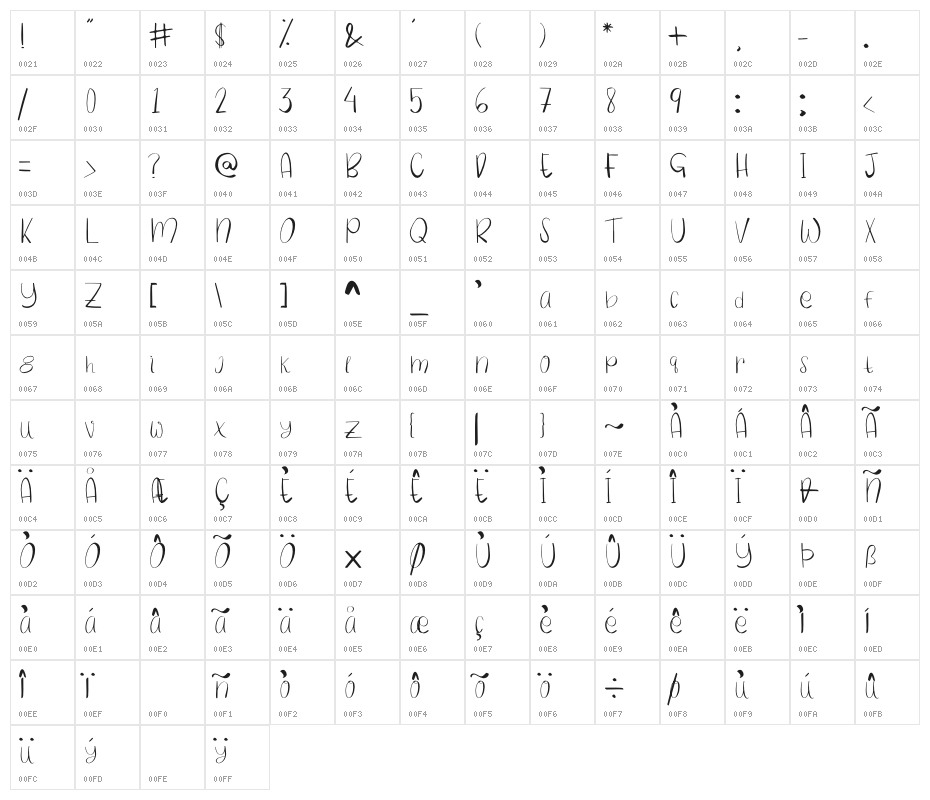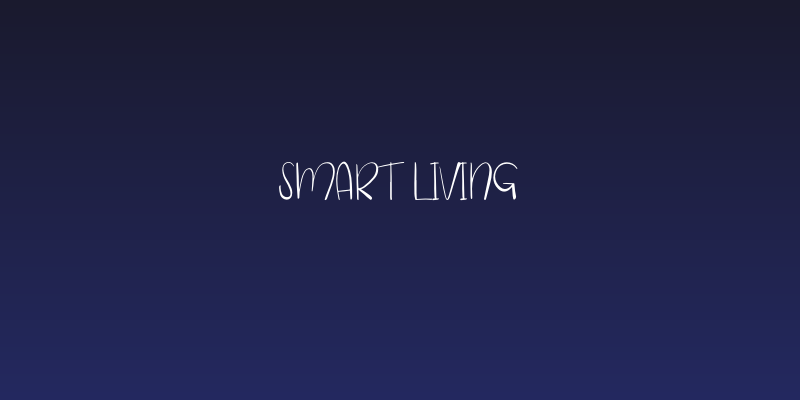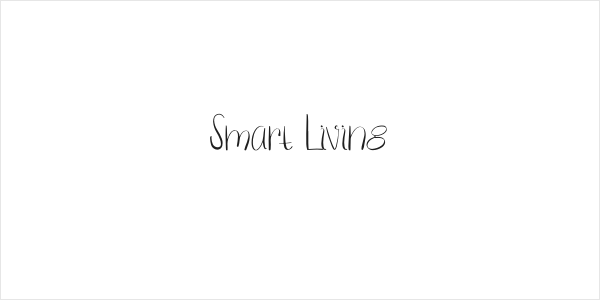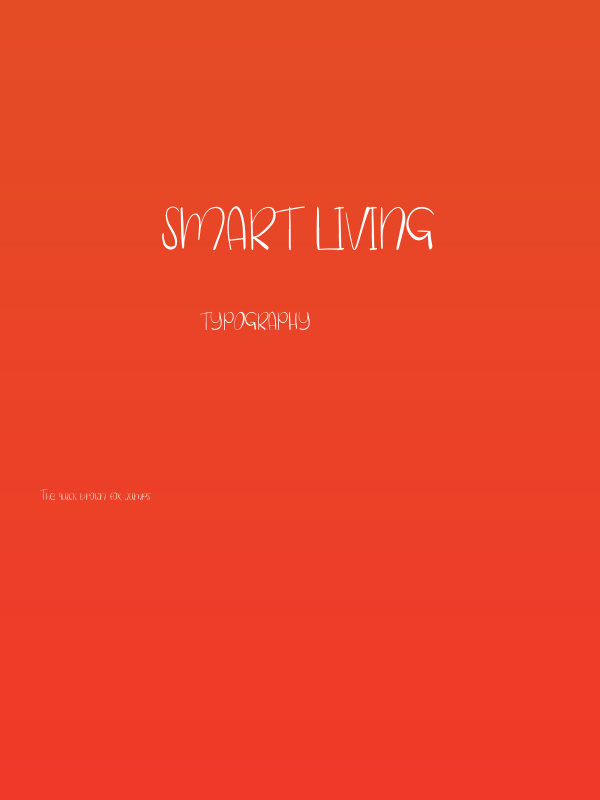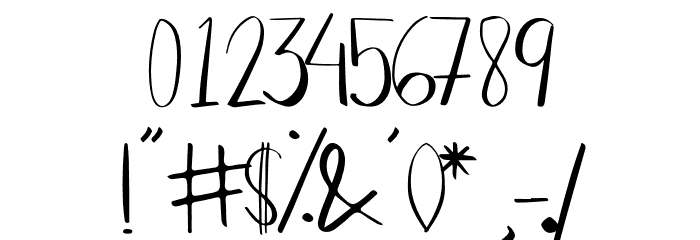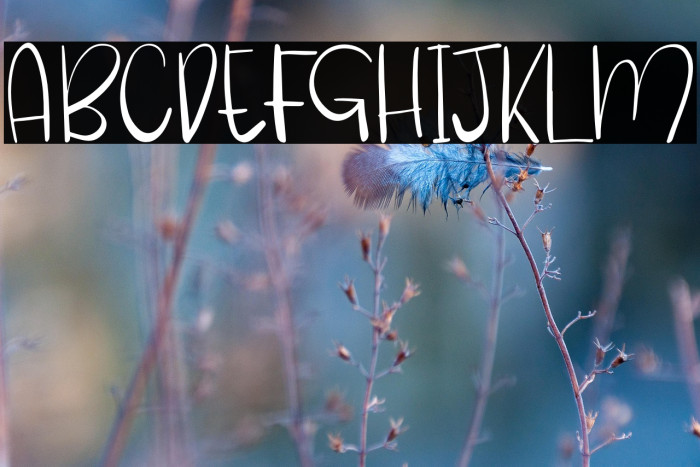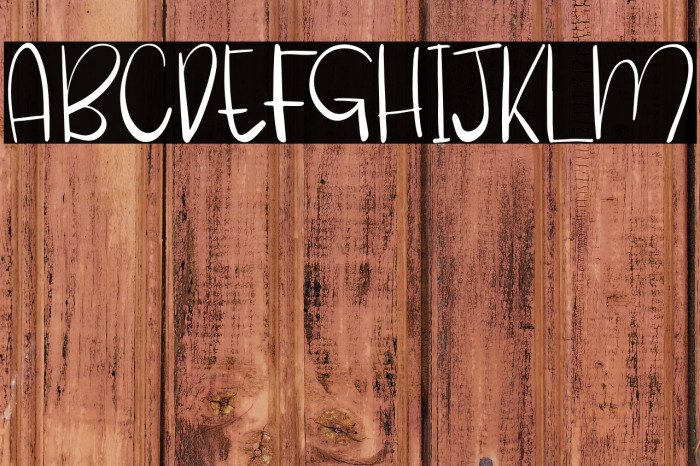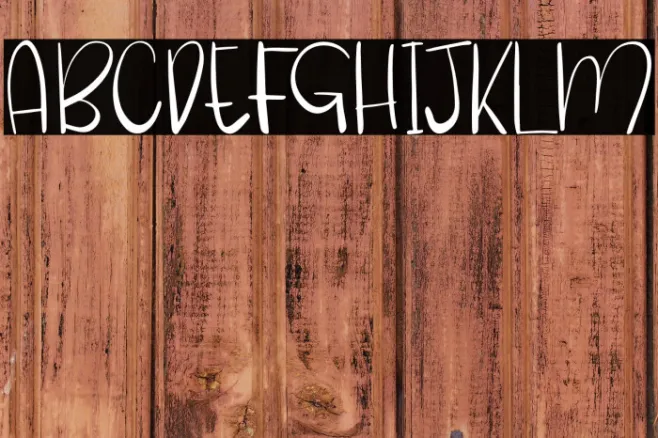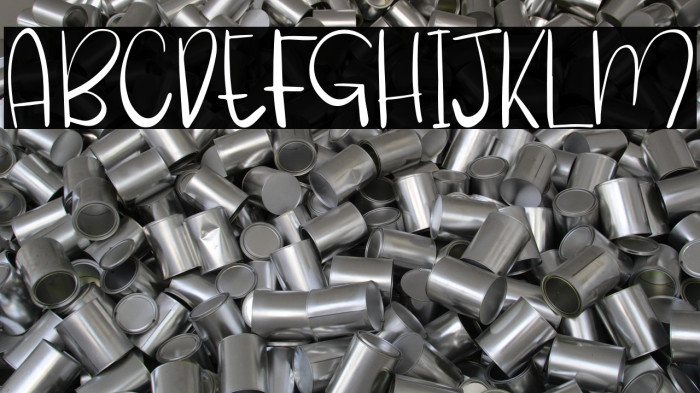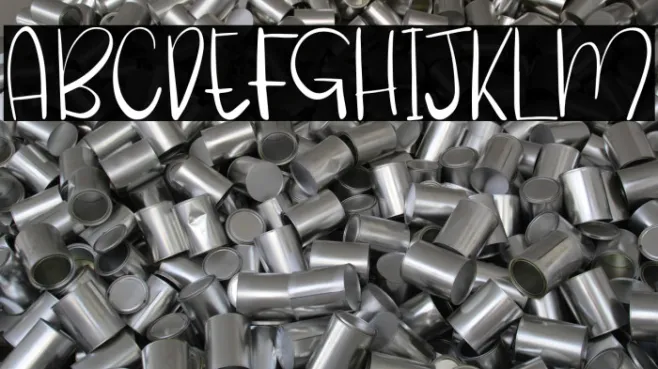
Smart Living Font
Smart Living Description
This font features a playful and whimsical style with a handwritten appearance. The letters are slightly slanted, giving a casual and informal feel. The strokes are varied in thickness, adding a dynamic and lively character to the text. The uppercase letters are tall and narrow, while the lowercase letters maintain a consistent flow with rounded edges. The numerals are distinct and easy to read, complementing the overall style. Special characters are creatively designed, enhancing the font's unique personality. This font is perfect for projects that require a personal touch and a sense of creativity.
| Overall Style | Whimsical |
| Use Case | Headlines, Creative projects, Invitations |
| Proposed Projects | Ideal for greeting cards, invitations, children's books, and creative branding. |